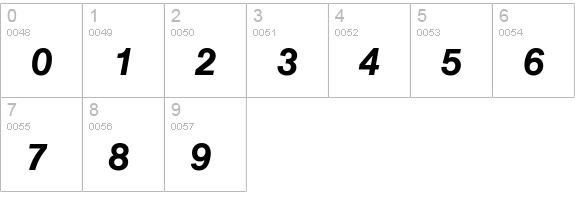
Arezzo-DemiItalic Font Details
Arezzo-DemiItalic is a stunning and elegant font that exudes sophistication and style. Its unique combination of curves and angles creates a harmonious balance that is both modern and classic. The italicized style adds a touch of flair and elegance, making it perfect for adding a touch of luxury to any design project. What sets Arezzo-DemiItalic apart is that it is not only visually appealing but also incredibly versatile. Whether you are designing a logo, creating a poster, or crafting a wedding invitation, this font will elevate your design to the next level. The best part? Arezzo-DemiItalic is completely free to download at FontsMarket.com. This means you can add this beautiful font to your collection without breaking the bank. Don't miss out on this opportunity to enhance your designs with the beauty and sophistication of Arezzo-DemiItalic font. Download it now and start creating stunning designs today!